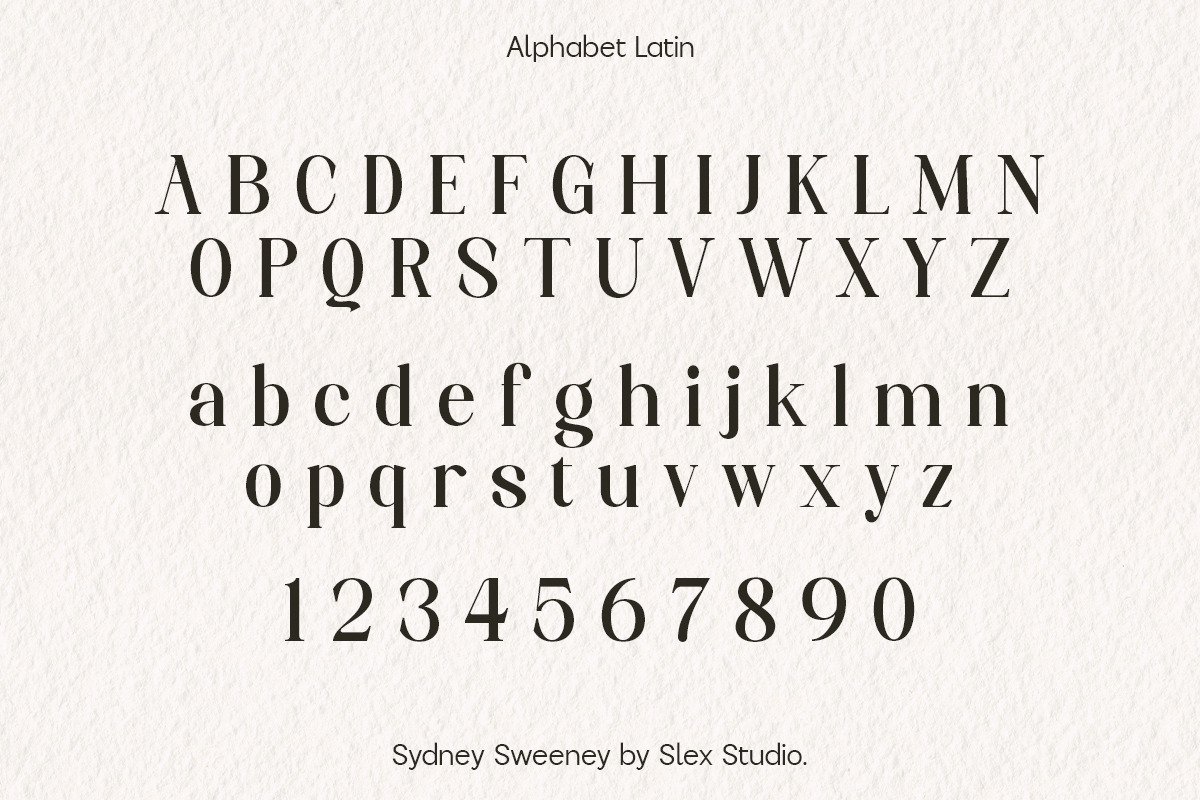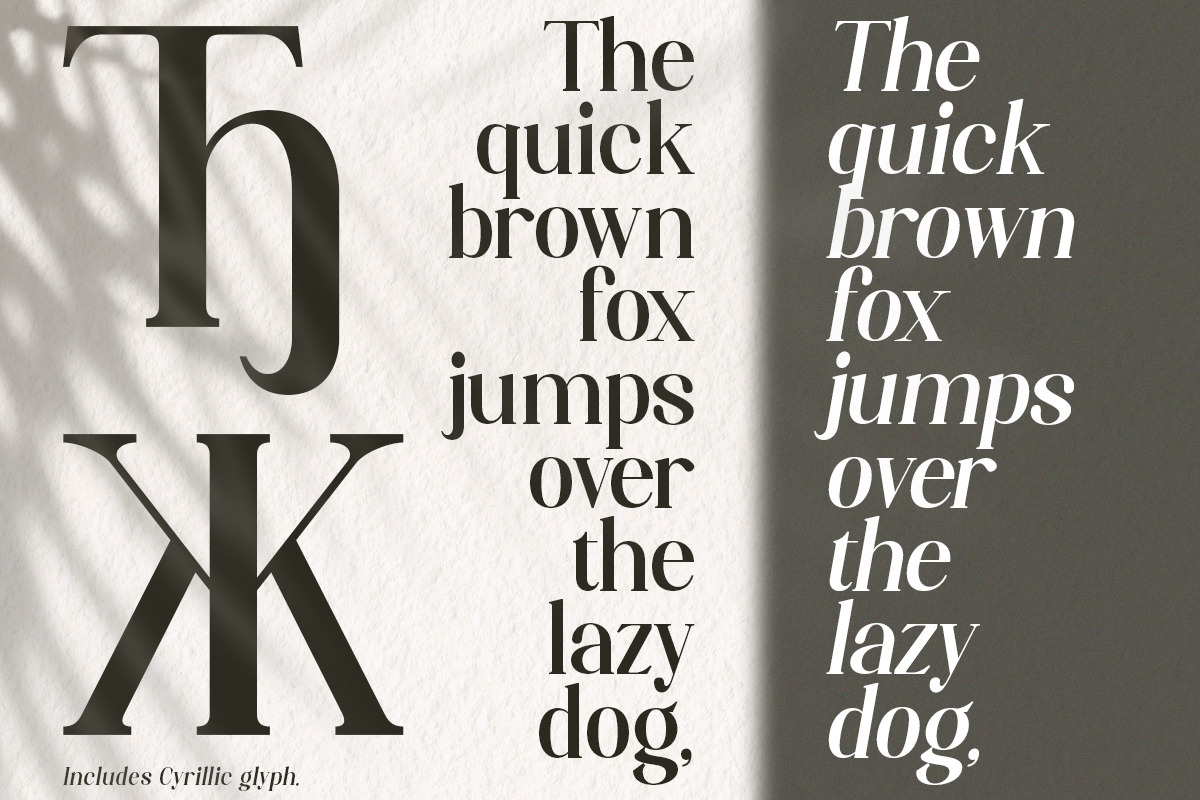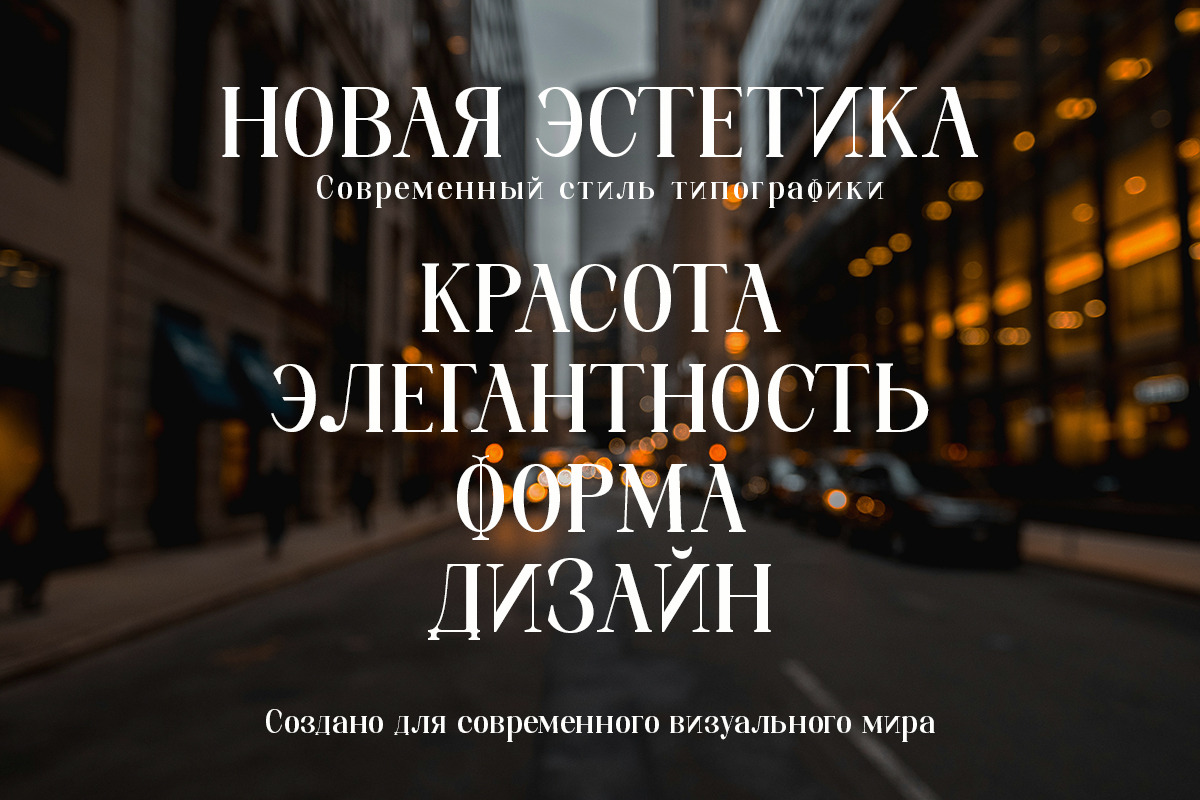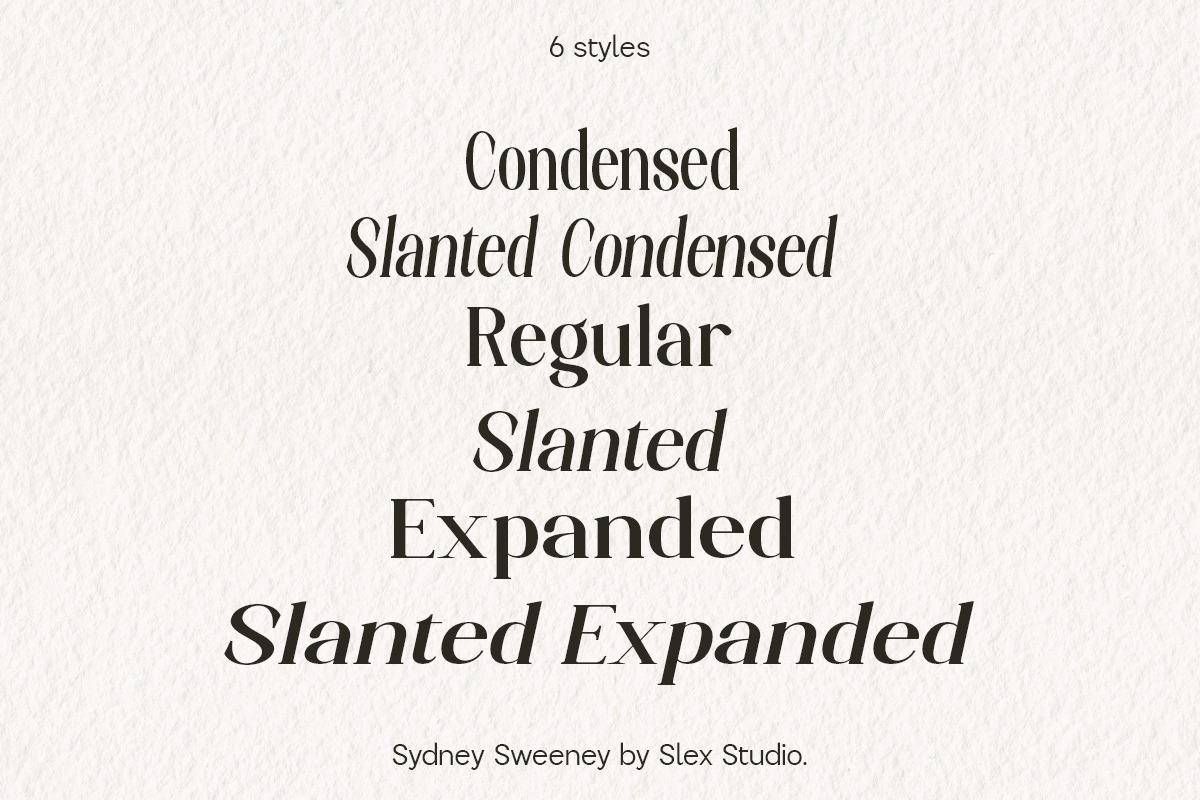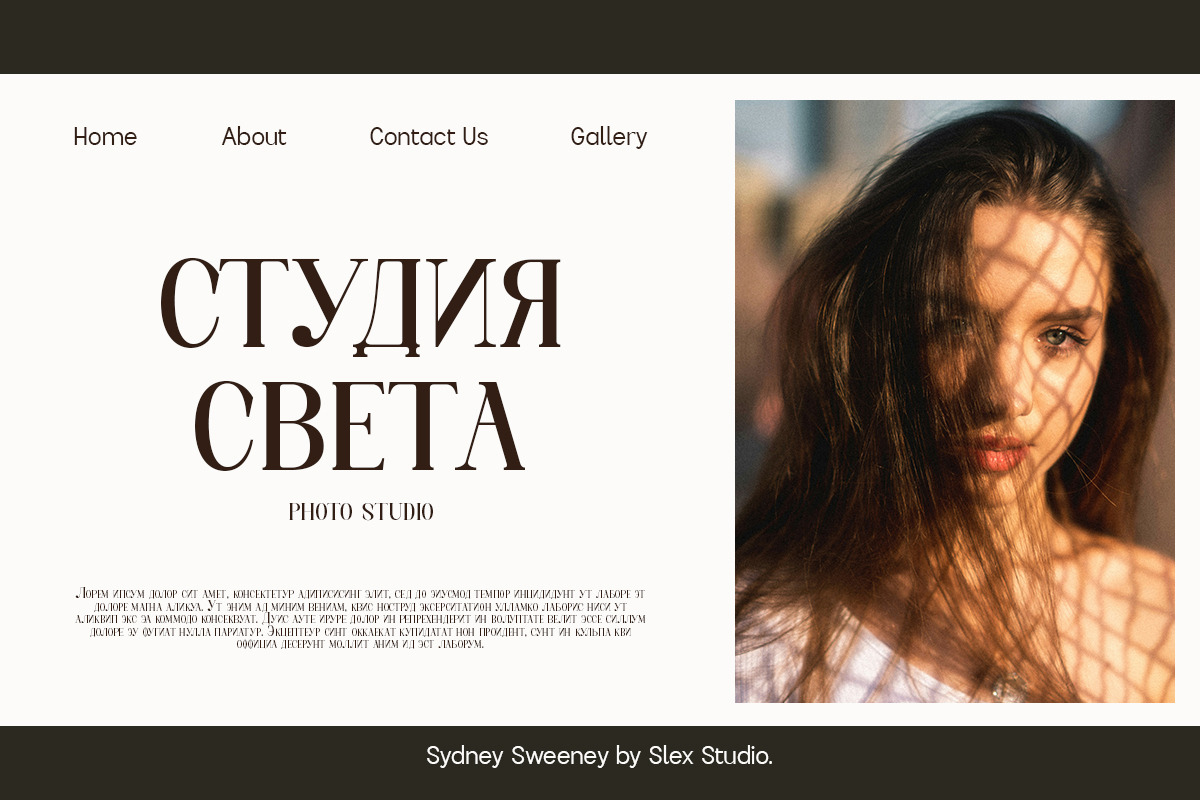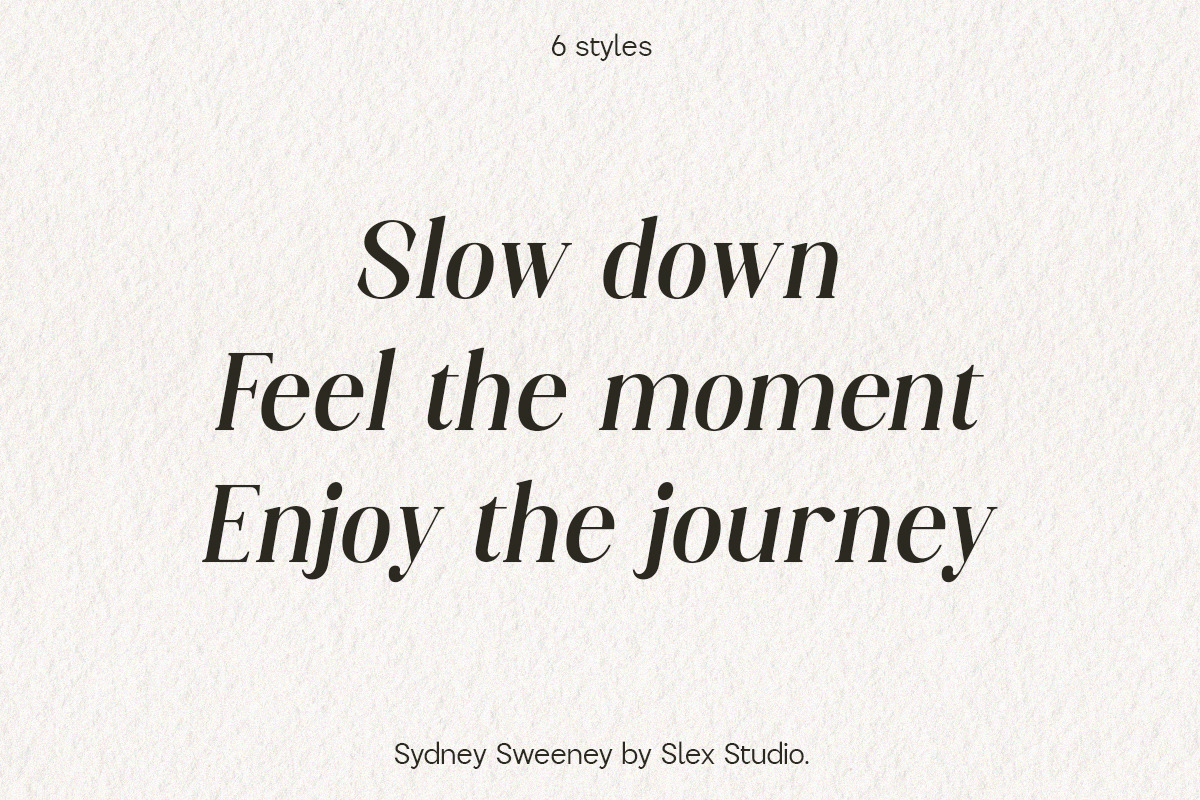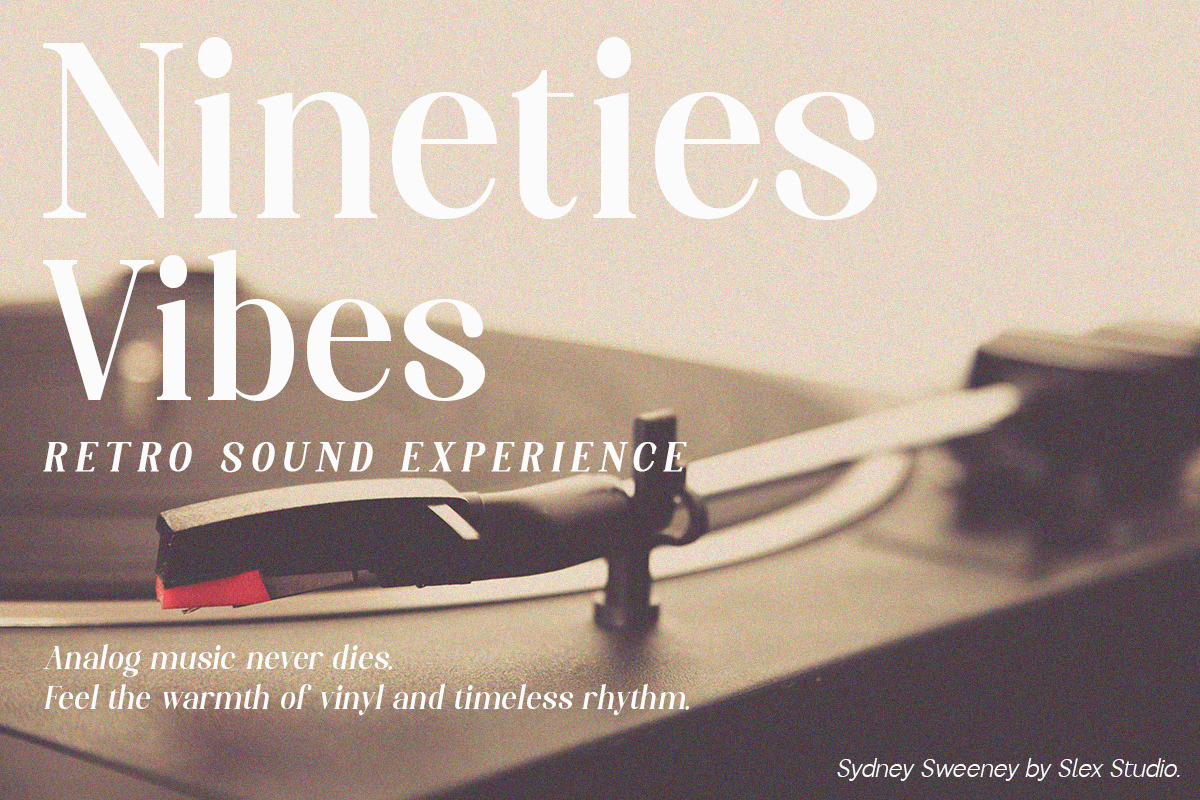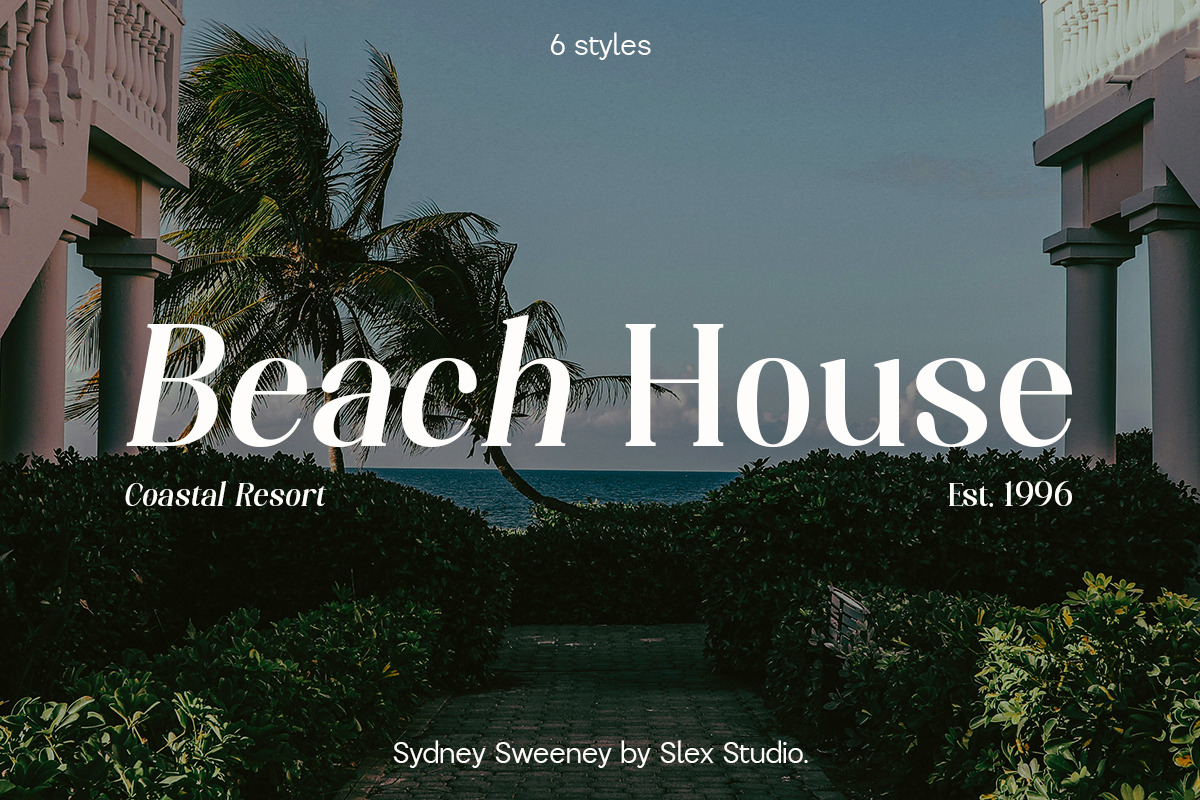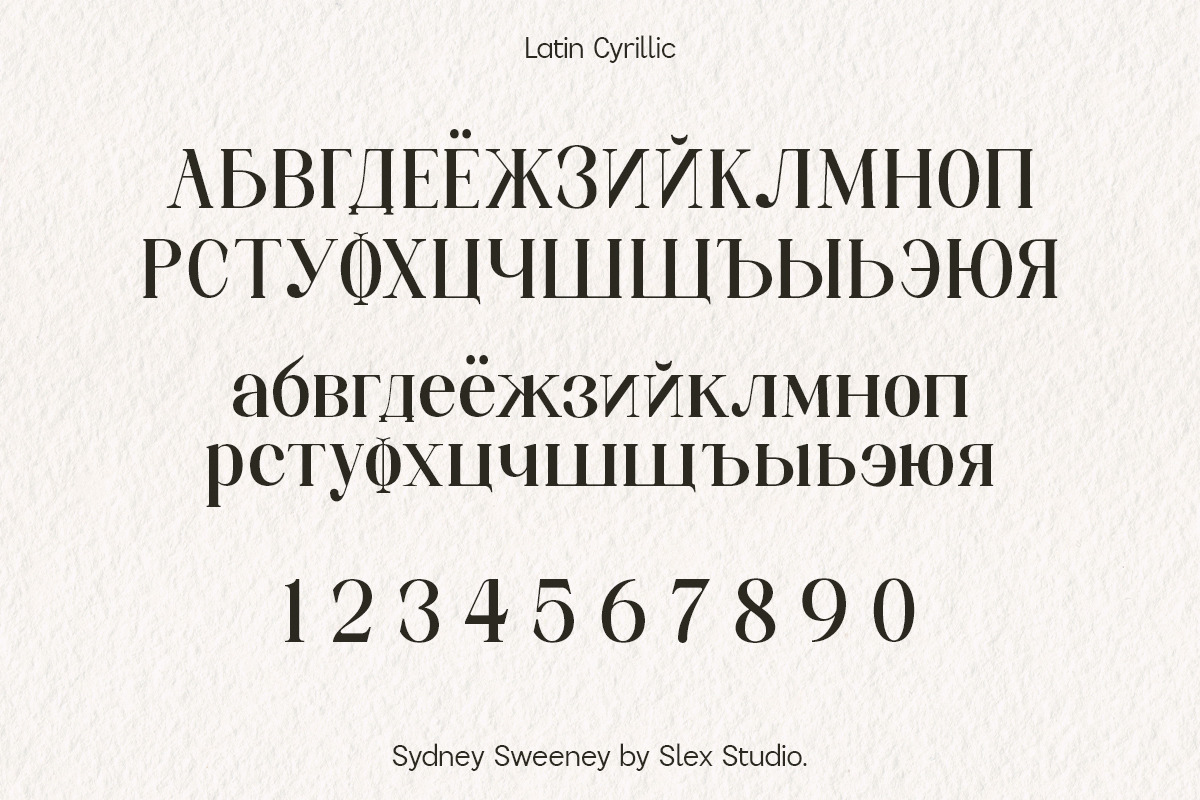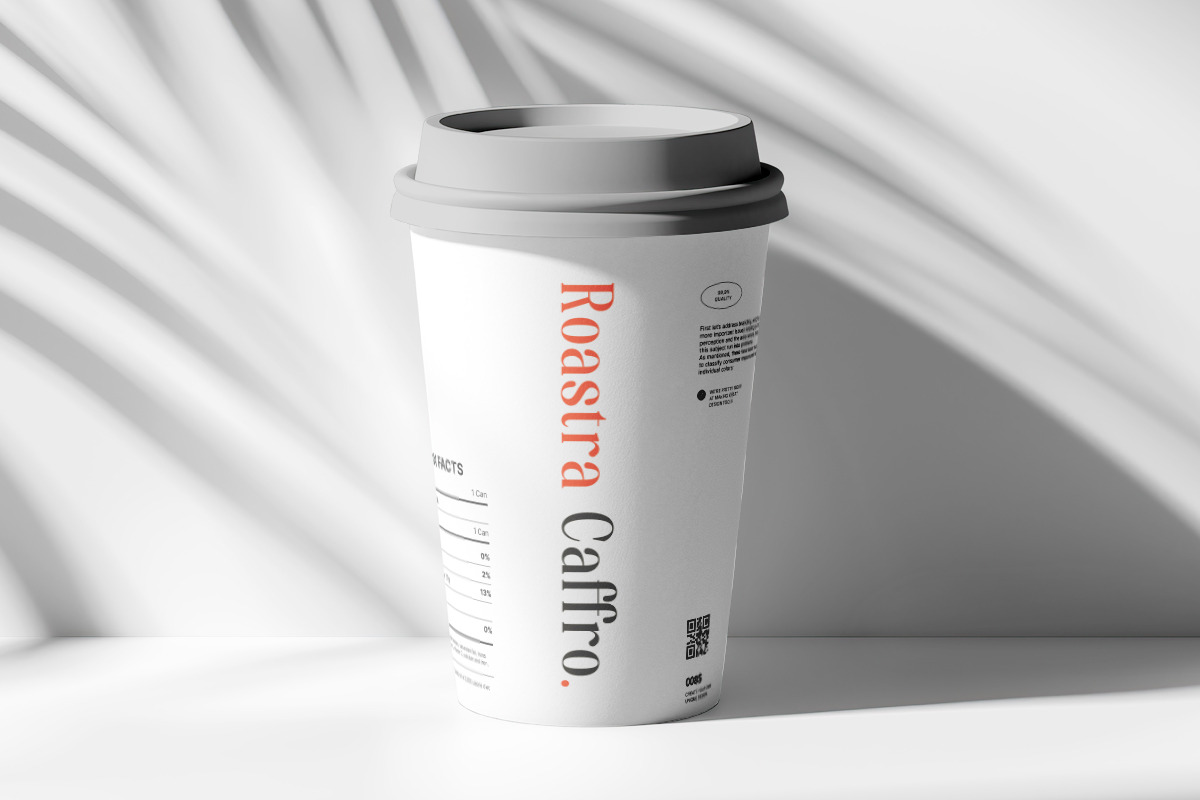
Sydney Sweeney
Sydney Sweeney is a contemporary serif font family designed to bring elegance, clarity, and refined character to modern typography. With a balanced contrast and carefully crafted letterforms, this typeface delivers a sophisticated aesthetic that works beautifully across a wide range of design applications.
The family includes six styles ranging from Condensed to Expanded, offering exceptional versatility for both expressive headlines and refined branding. Its graceful curves, sharp serifs, and harmonious proportions create a timeless appearance that feels both modern and classic.
Perfect for luxury branding, editorial layouts, fashion magazines, logos, packaging, and premium visual identities, Sydney Sweeney adds a distinctive voice to any design. Whether used in large display settings or elegant compositions, the font maintains readability while expressing a strong visual personality.
Designed with attention to detail and typographic balance, Sydney Sweeney is an ideal choice for designers seeking a serif typeface that blends modern sophistication with timeless elegance.